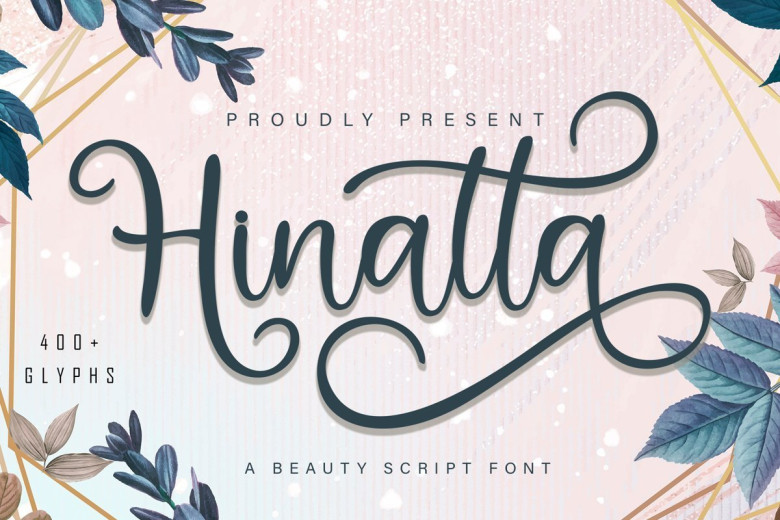
Hinatta Modern Script Font
Hinatta Modern Script Font is a delicate and elegant handwritten calligraphy font. It features a varying baseline, smooth lines, gorgeous glyphs and stunning alternates. Fall in love with its unique style and use it to create spectacular designs!